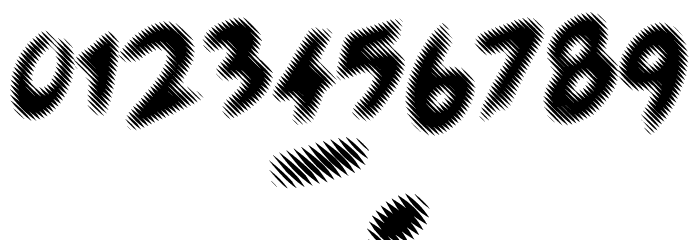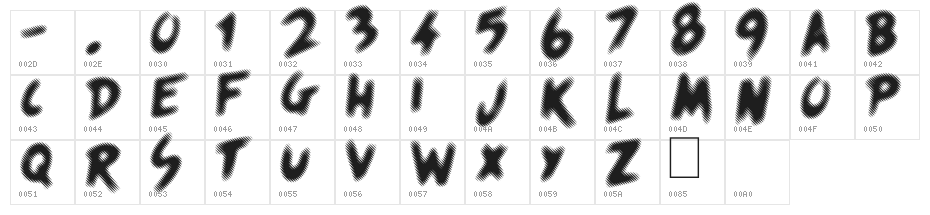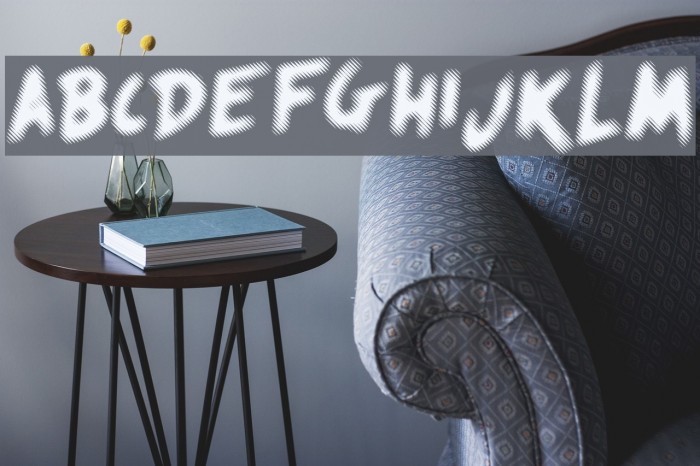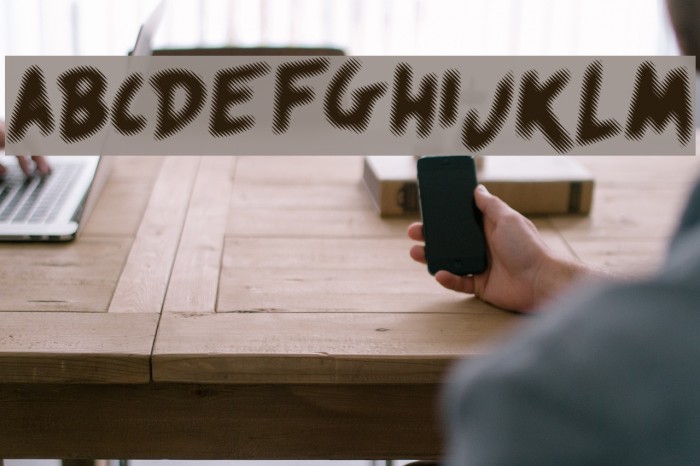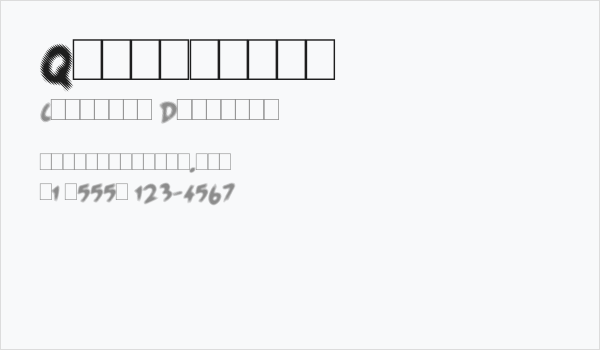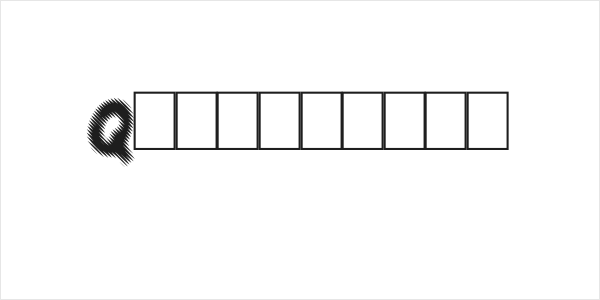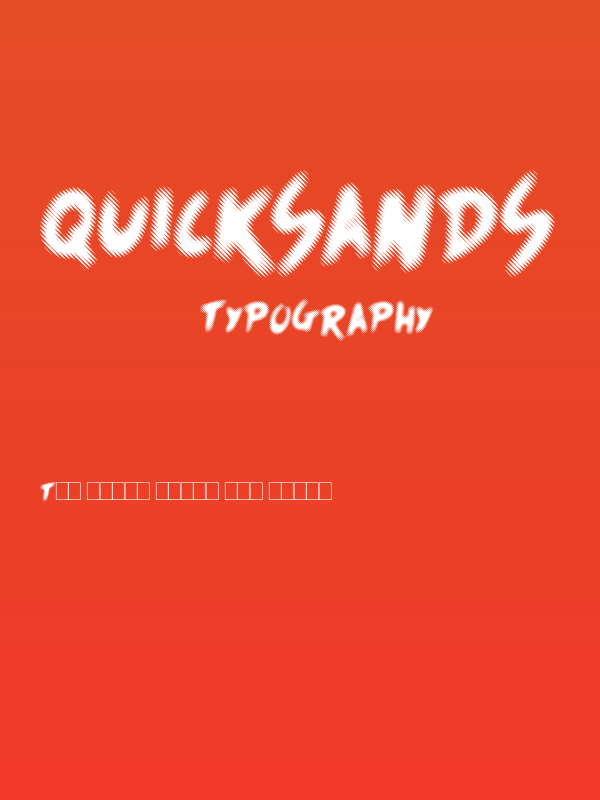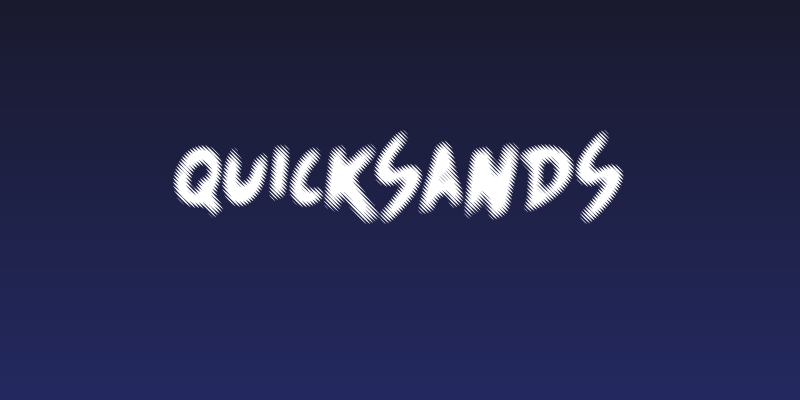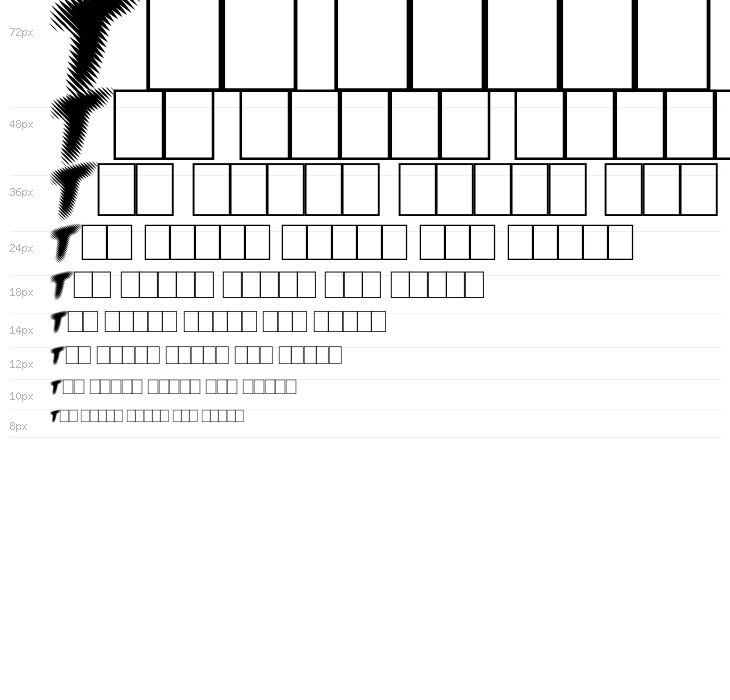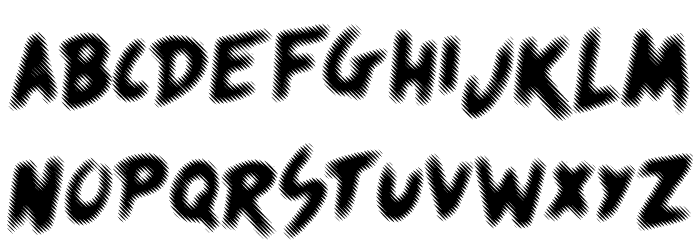
Quicksands Font
Quicksands Description
This font features a dynamic and energetic style, characterized by its bold, slanted strokes that create a sense of movement and urgency. The letters are crafted with a distinct diagonal hatching pattern, giving them a textured appearance that adds depth and visual interest. The uppercase and lowercase letters maintain a consistent style, with the uppercase being slightly more pronounced. Numbers and special characters follow the same design principles, ensuring uniformity across all elements. The font's unique texture and boldness make it stand out, making it suitable for projects that require a strong visual impact.
| Proposed Projects | Ideal for posters, headlines, branding, and any design that requires a bold, eye-catching typeface. |